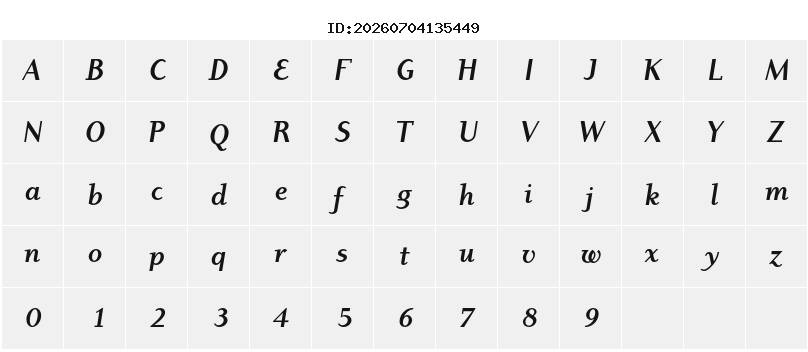
Dyadis ITC Std Book Preview
• Font Name: Dyadis ITC Std Book
• Font ID: ITC - Dyadis ITC Bold Italic
• Full Font Name: DyadisITCStd-BoldItalic
• Version: Version 1.000;PS 001.000;hotconv 1.0.38
• PostScript Name: DyadisITCStd-BoldItalic
• Designer: Yvonne Diedrich
About Dyadis ITC Std Book.otf
Dyadis ITC Std Book.otf is a modern, elegant sans-serif font designed for ultimate readability and visual harmony. Perfect for branding, headlines, web design, and print materials.